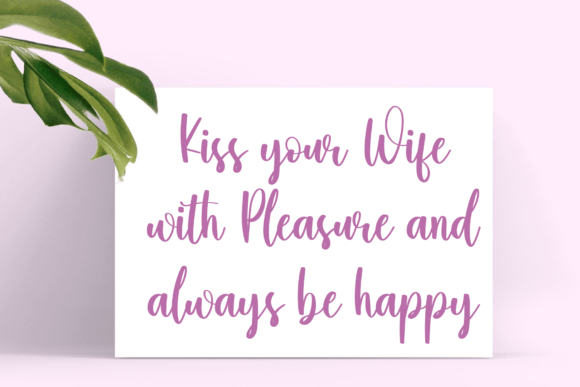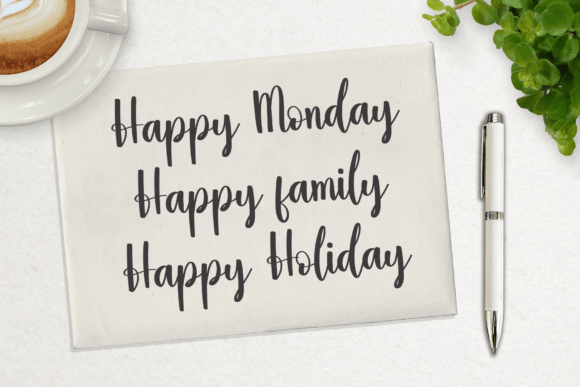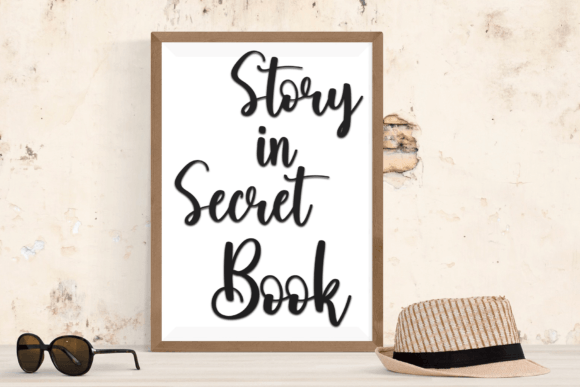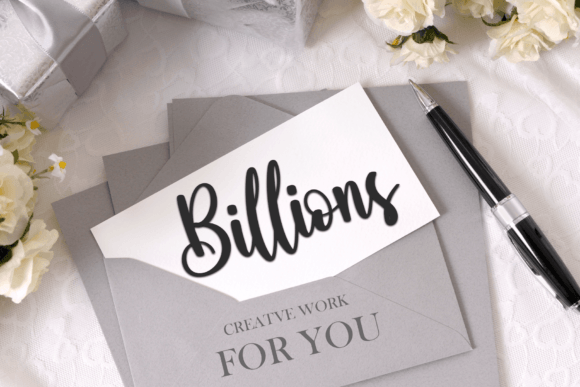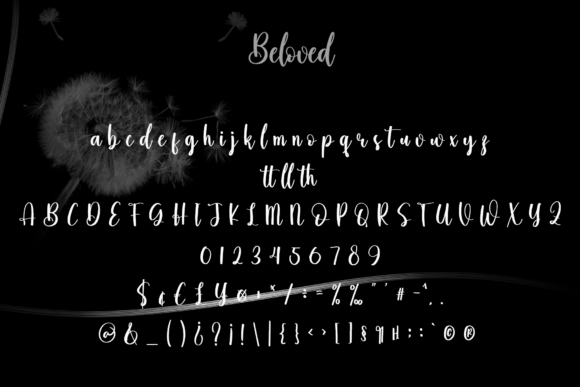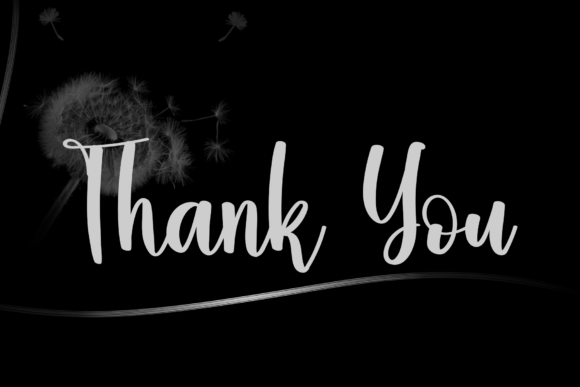
When Words Become Art: Discovering the Magic of Beloved Font
Have you ever found yourself scribbling down ideas in a coffee shop, or jotting down notes in the middle of a brainstorming session? I’m guessing that’s exactly when the magic happens – when your words start to take shape and transform into something beautiful. For me, it’s moments like these that remind me why I love design. And speaking of design, I want to introduce you to a font that will make your words sing: the Beloved Font.
This charming handwritten font is perfect for adding a touch of elegance and whimsy to your projects. Whether you’re creating a logo, invitation, or social media post, the Beloved Font is sure to make your design stand out. As a designer, you know how important it is to have the right tools at your disposal – and the Beloved Font is definitely a valuable addition to your toolkit. With its classy, modern look, this font is sure to become your new go-to for all your design needs.
Beloved Font Key Features
- Font Family: Beloved is a script font family that includes multiple styles and weights, making it suitable for a variety of design applications.
- Unique Characteristics: Beloved Font features a unique, handwritten style with a touch of elegance and sophistication, making it perfect for creating a personal and emotional connection with the audience.
Beloved Font Review
Overall, I was quite excited to dive into the Beloved Font, but my experience was a mix of delight and frustration.
- The font’s elegant and romantic feel is perfect for creative projects, especially those with a vintage or whimsical touch.
- The font’s high legibility makes it suitable for body text, allowing readers to easily follow along without getting lost.
- The font’s beautiful script connections add a touch of sophistication, making it ideal for formal or professional applications.
- The font’s limited character set may cause issues for languages that require more complex characters or diacritical marks.
- The font’s spacing and kerning can be inconsistent at times, which may affect the overall aesthetic of your design.
- The font’s high x-height can make it difficult to read at small font sizes or in low-resolution environments.
Overall, I’d give the Beloved Font 3.5 out of 5 stars. While it’s a beautiful and elegant font, its limitations hold it back from being a top choice for all designers. However, for the right project, it can be a stunning addition to your typography arsenal.
Tips for Getting the Most Out of Beloved Font
For optimal results, use the Beloved Font in combination with bold or italic styles to create visual interest. Experiment with different font sizes and colors to enhance the design. Consider pairing the Beloved Font with other complementary fonts to create a unique visual identity.